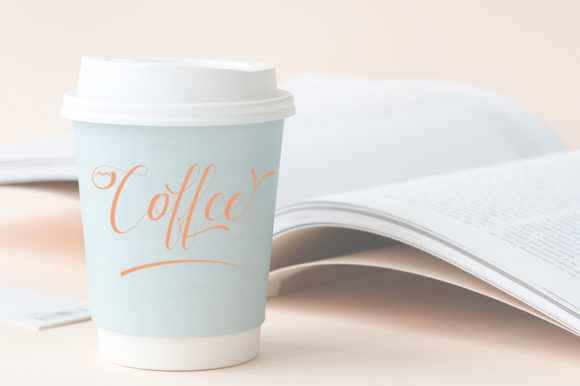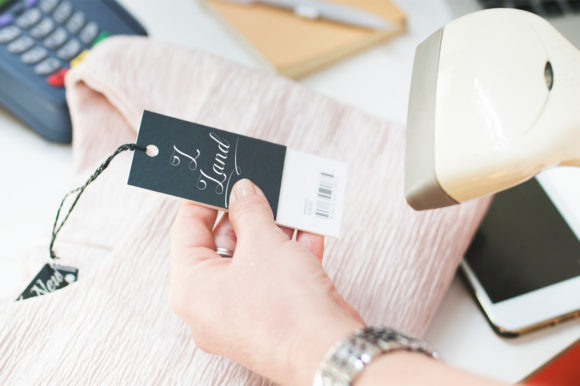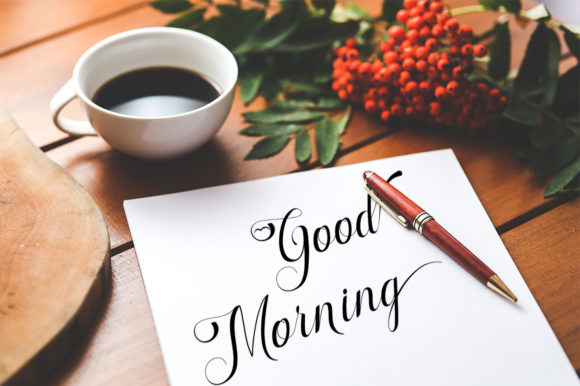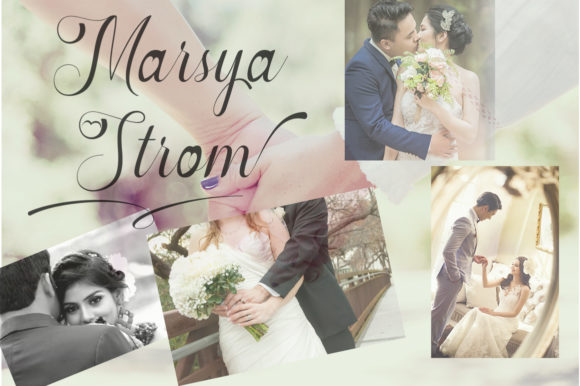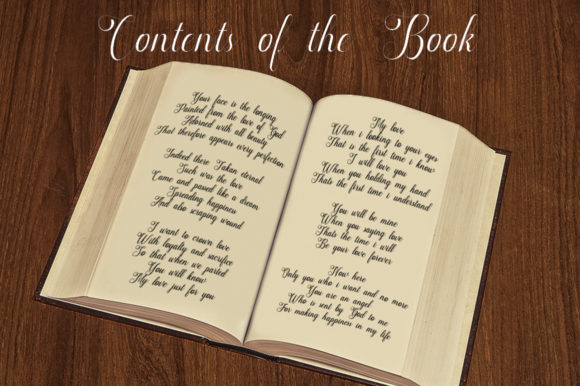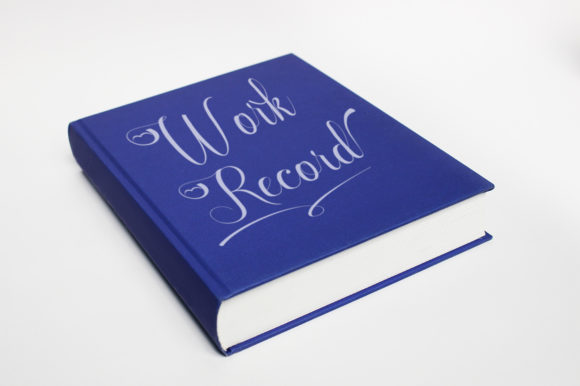
Introduction to Marketing Font
Imagine you’re brainstorming ideas for your next creative project, and you stumble upon the perfect font to match your brand’s personality. The Marketing Font is a game-changer for designers, offering a modern script font with handmade calligraphy and decorative characters that add a touch of elegance to any design.
As a valuable design resource, the Marketing Font is ideal for various creative projects, from invitations and greeting cards to branding material and business cards. With its high-quality features and transparent background, this font is perfect for designers who want to add a personal touch to their work.
Key Features of Marketing Font
- Professional-grade font with precise resolution, ideal for high-resolution print and digital applications.
- Unique characteristics include a modern and sleek design, making it suitable for various marketing materials.
Honest Review: Marketing Font
I’ve been experimenting with various design resources for my creative project, and I stumbled upon the Marketing Font. Overall, I was pleasantly surprised with its high quality and versatility.
- Transparency options: The font offers a transparent background, which is perfect for overlaying on images or creating a sense of depth in my designs.
- Modern aesthetic: The font’s sleek and modern design makes it an excellent choice for contemporary marketing materials, such as brochures and flyers.
- Limited language support: The font may not support all languages, which could be a limitation for designers working on projects that require multilingual content.
- No bold or italic variants: While the font’s regular weight is clean and readable, the lack of bold or italic variants might make it less versatile for certain design applications.
Overall, I think the Marketing Font is a solid addition to any designer’s toolkit. Its transparent background and modern aesthetic make it an excellent choice for creative projects, especially those focused on marketing and branding.
Marketing Font
The Marketing Font is ideal for use in creative projects, such as brochures, flyers, and business cards. It is also suitable for use in presentations, reports, and marketing materials.
To get the most out of the Marketing Font, use it in conjunction with a transparent background to create a clean and professional design. You can also use it in combination with other design resources, such as images and graphics, to create a high-quality visual effect.
Alternatives to Marketing Font
Open Sans is a clean and modern sans-serif font that is suitable for a wide range of creative projects. It’s a high-quality design resource that can be used for both digital and print materials, including websites, business cards, and brochures.
When to use: Open Sans is ideal for projects that require a clean and professional look, such as corporate websites, business presentations, and marketing materials.
Comparison to Marketing Font: Open Sans has a similar feel to Marketing Font, but with a more rounded and friendly appearance. It’s a great alternative for projects that require a more approachable tone.